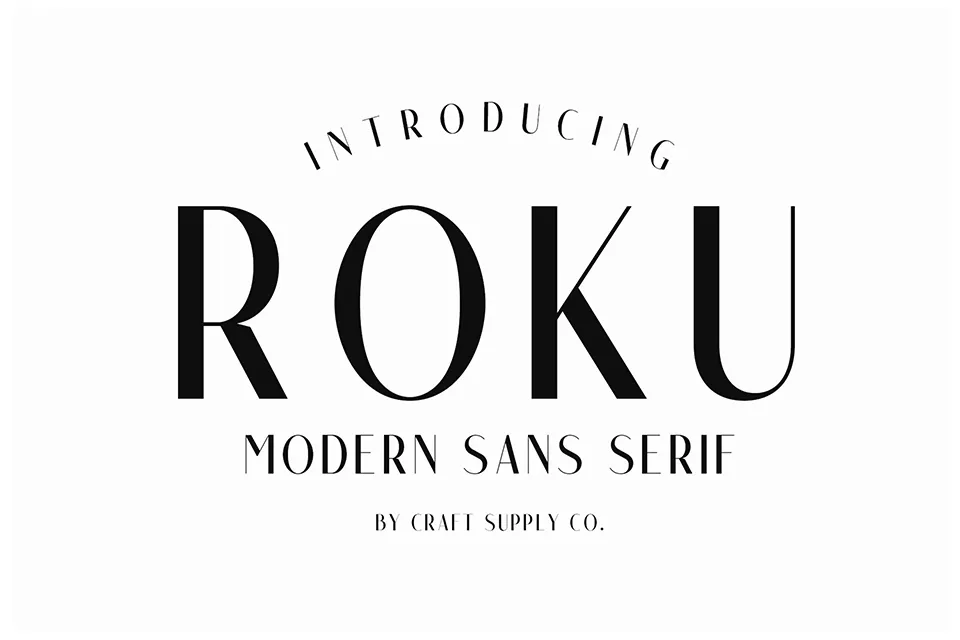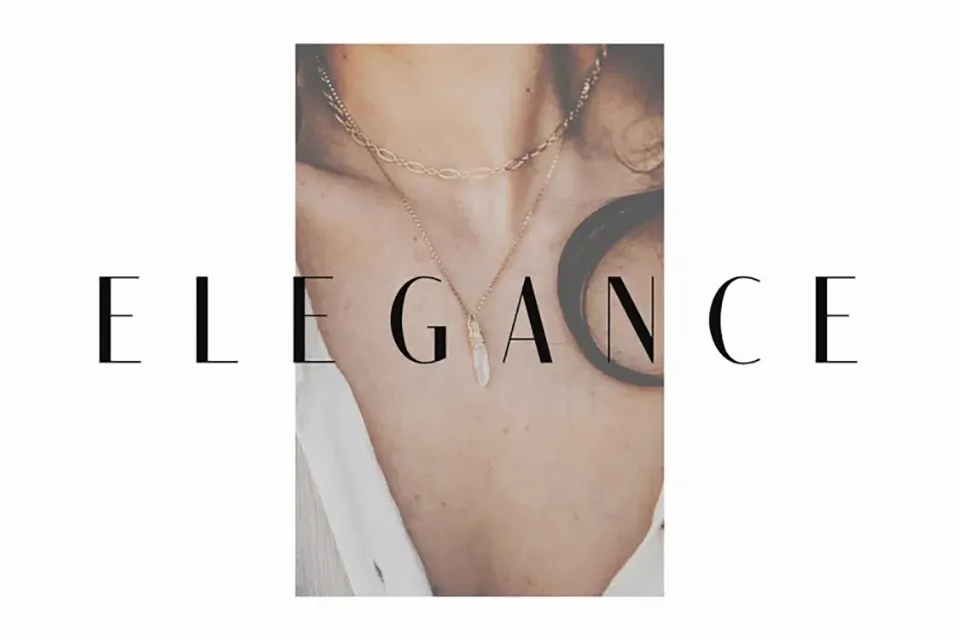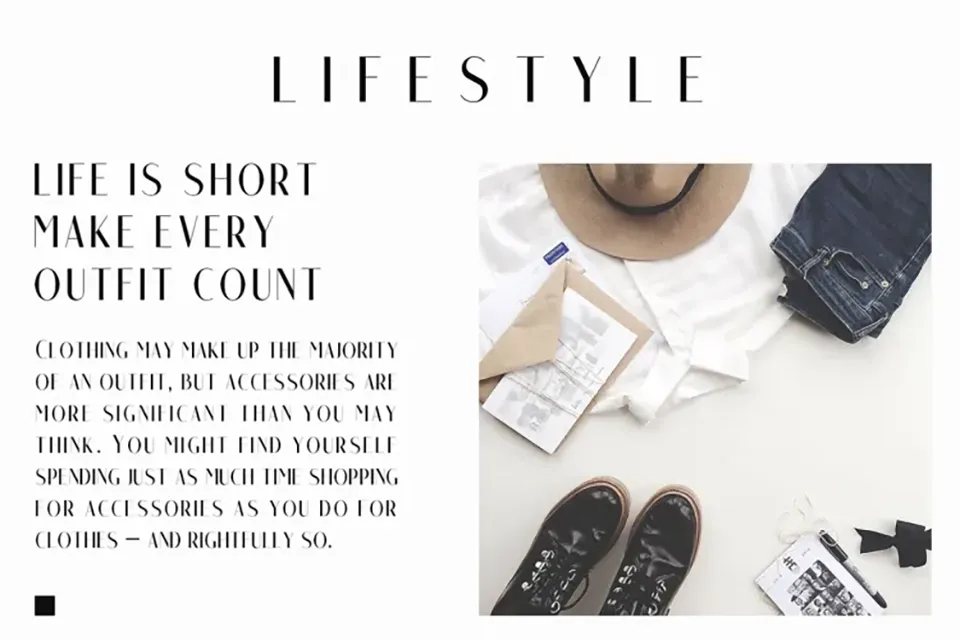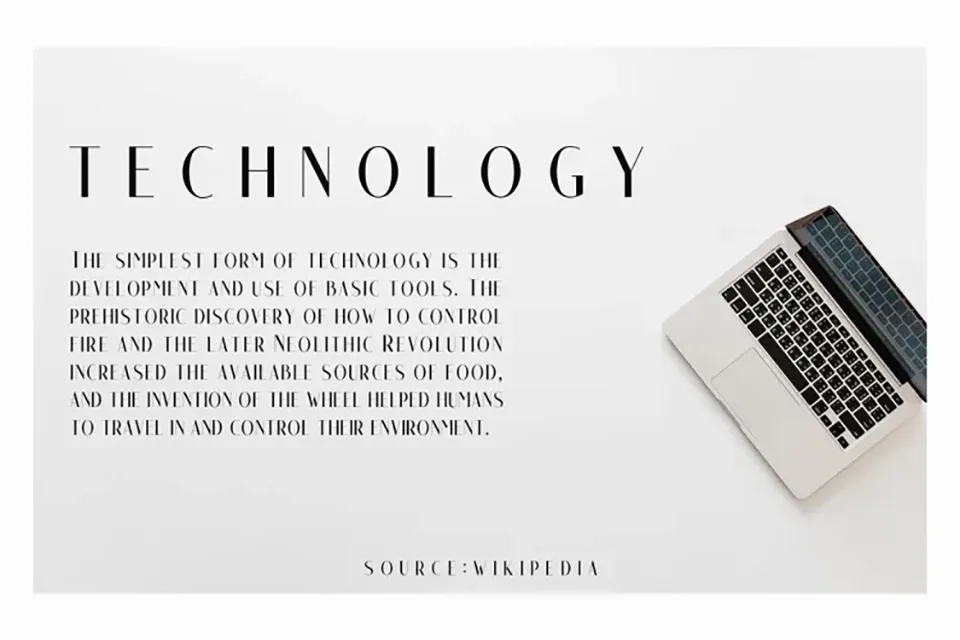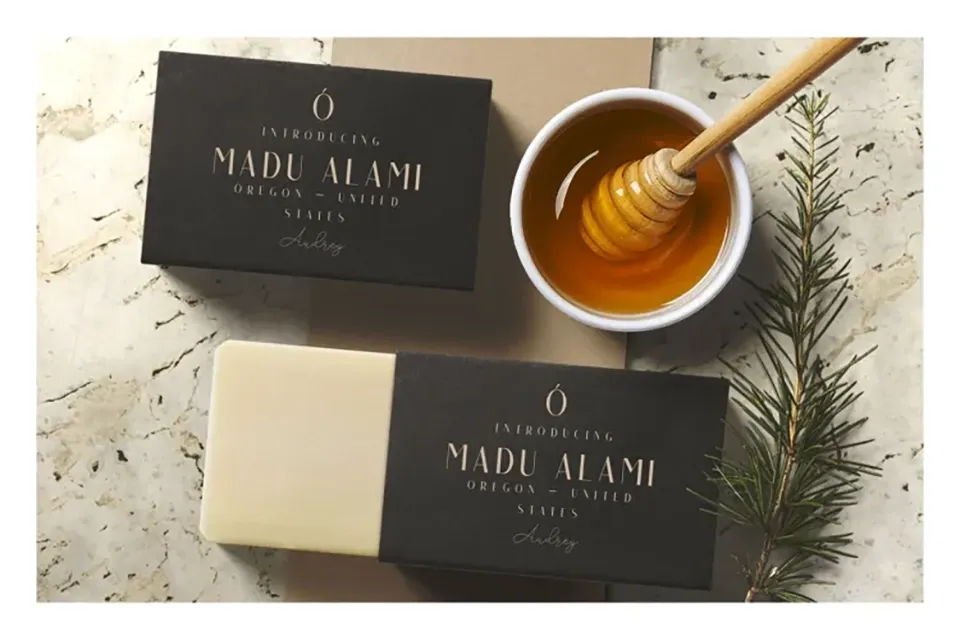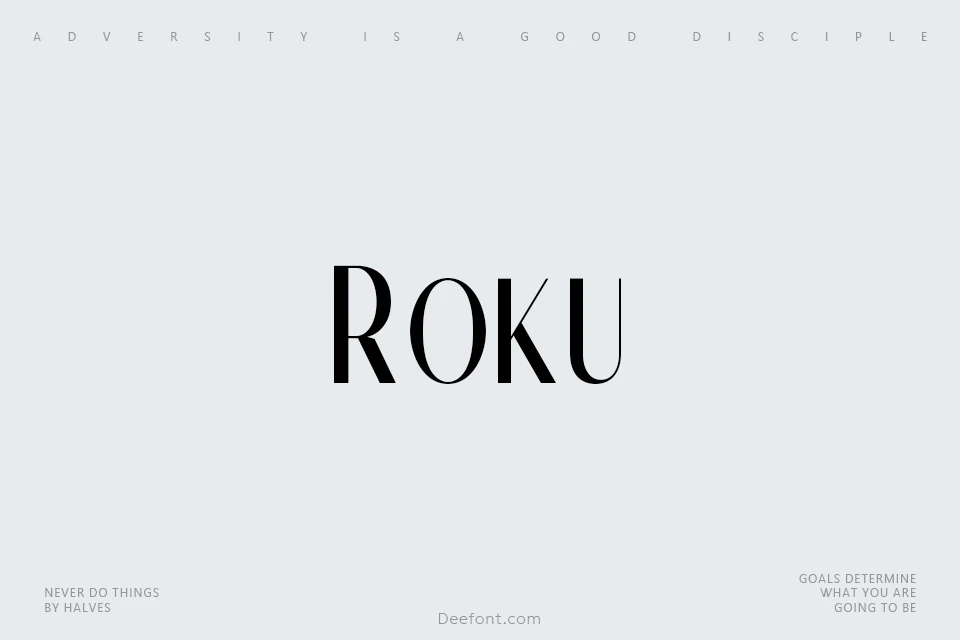
Roku Font
Roku Font is a sleek and modern sans-serif typeface designed to elevate your creative projects with sophistication and style. Featuring clean lines, balanced proportions, and a minimalist aesthetic, it is perfect for branding, editorial designs, logos, and high-end packaging. Roku’s bold yet refined letterforms create a striking visual impact while maintaining excellent readability. Its versatility allows it to adapt seamlessly to both contemporary and classic design themes. Whether you’re aiming for elegance or simplicity, Roku Font delivers a polished and professional look that stands out. Ideal for designers seeking a timeless typeface with a modern edge.